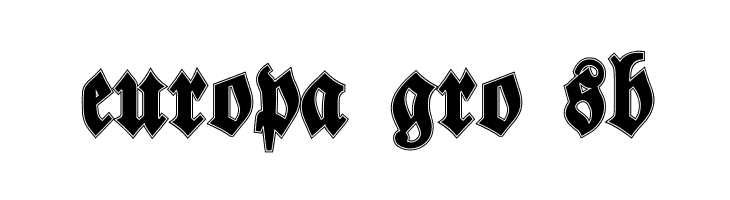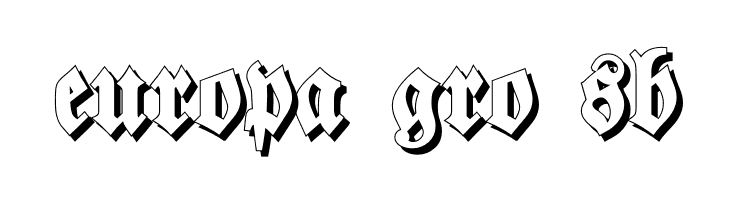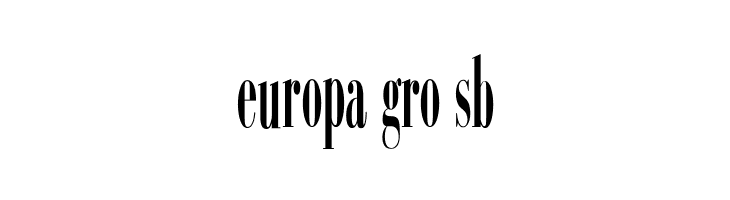
A bold, blackletter font with intricate, Gothic-inspired detailing.
A bold, intricate Blackletter typeface with dramatic curves and sharp angles.
A bold, medieval-inspired font with sharp, angular edges and pronounced serifs.
A bold, blackletter font with gothic, angular strokes and intricate detailing.
A bold blackletter font with sharp, angular lines and a modern edge.
An ornate blackletter font with bold inline detailing and gothic flair.
A bold blackletter font with shadow effects, offering a dramatic and historical style.
( Fonts by Casady & Greene )
A bold, elegant font with high contrast and a vintage-modern style.
( Fonts by Dennis Ludlow - Sharkshock Productions )
A bold, decorative font with an outline effect and intricate, angular details.